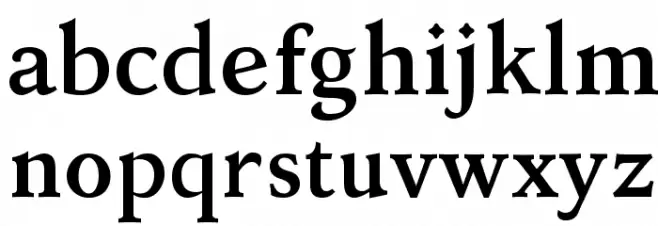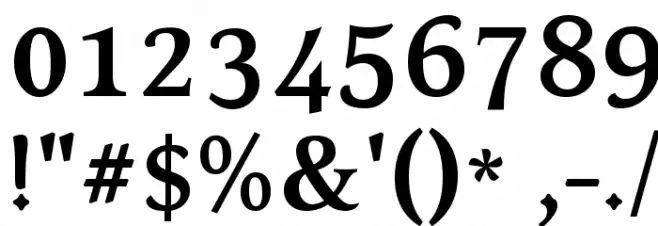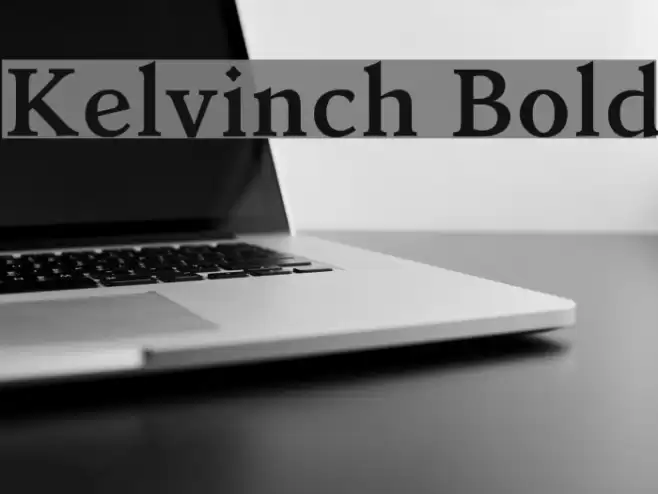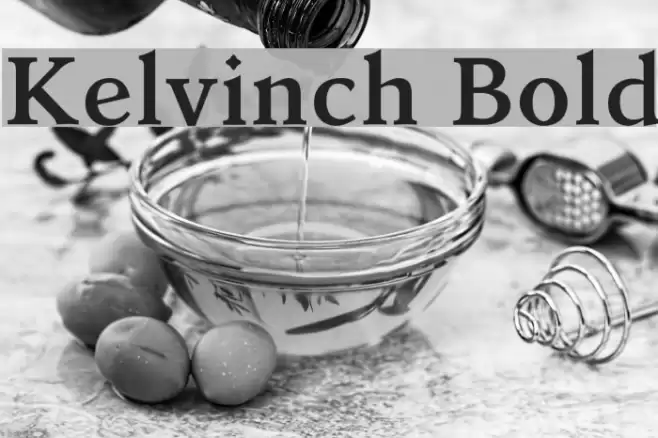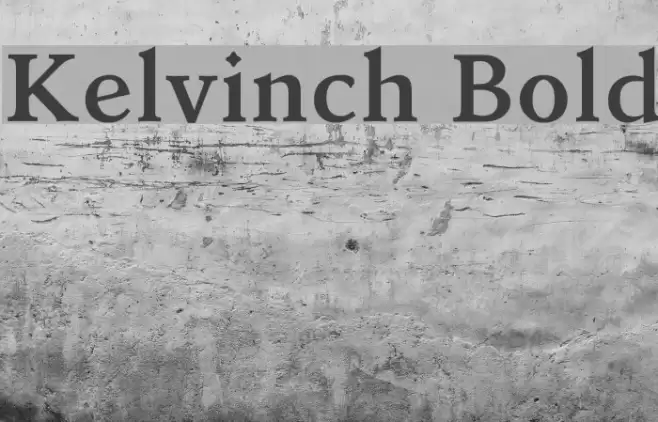
Kelvinch Bold
This font features a bold and assertive serif style, characterized by its strong and pronounced strokes. The uppercase letters exhibit a classic and authoritative presence, while the lowercase letters maintain a balanced and readable form. The numerals are clear and distinct, ensuring legibility in various contexts. Special characters are well-integrated, providing versatility for diverse applications. The overall design is both traditional and modern, making it suitable for a wide range of uses.
A bold serif font with strong strokes and a classic yet modern appeal.
- Proposed Projects: Ideal for book covers, editorial design, branding, and formal invitations.
- Category: Serif
- Contrast: High
- Overall Style: Classic
- Use Case: Headlines, Logos, Editorial design